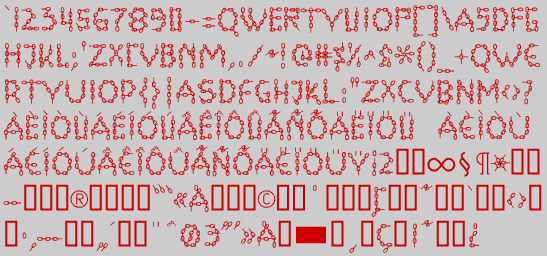
ChainLetterTwo
A novelty font is an extreme form of display font. Often it has letters that are made of recognizable elements, such as safety pins, knives and forks, or umbrellas. Novelty fonts should be used in extreme moderation if they are used at all.
I have done a great many novelty fonts during the eight years I have been designing typefaces. In fact one of the very first fonts I constructed, ChooChoo, was a novelty font. (A much revised version of this is on the No-Hype Type CD as LetterTrain.) People who collect shareware fonts have probably seen my RedLetter font, which was again one of the very first typefaces I designed. I am not quite sure what attracts me to this type of font, but it formed the backbone of the third font CD I did for Wayzata Technology, Font Pro 5. Unfortunately Wayzata developed serious problems within months of publishing this CD, so it never got much expose. But all of these gems are now on the No-Hype Type CD.
ChainLetterOne and ChainLetterTwo have letters and characters made up of chains. In ChainLetterOne the chain is larger, and in ChainLetterTwo the chain is finer.